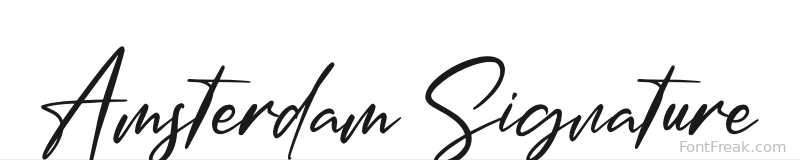
Amsterdam Signature
Amsterdam Signature by Perspectype Studio is a stunning handwritten font that embodies elegance and personality. This script typeface features fluid, sweeping strokes that evoke a sense of artistry and craftsmanship. The contrast in stroke weight enhances its visual appeal, giving it a dynamic presence. The spacing is thoughtfully designed to ensure readability while maintaining a casual, personal touch, making it perfect for a variety of creative applications.
This font is ideal for wedding invitations, where its graceful curves can add a romantic flair. It also excels in branding for boutique businesses, such as coffee shops or artisanal bakeries, where a warm and inviting aesthetic is essential. Additionally, Amsterdam Signature is well-suited for social media graphics or online content, allowing content creators to impart a unique identity to their posts. Its stylish appearance makes it a great choice for book covers, particularly in genres like romance or memoirs, where an intimate feel is desired.
Targeted towards graphic designers, small business owners, and content creators, Amsterdam Signature offers versatility and charm. Its ability to convey emotion through text can elevate any design project, making it a valuable asset in your typography toolkit.
What sets the Amsterdam Signature font apart is its distinct blend of modern and classic elements. The careful balance of artistic flair and legibility makes it a standout choice for anyone looking to make a lasting impression. With the Amsterdam Signature font free download, you can effortlessly incorporate this beautiful typeface into your next project, enhancing your designs with a touch of sophistication. Whether you're creating a personal invitation or a professional branding suite, this font is sure to leave a mark.